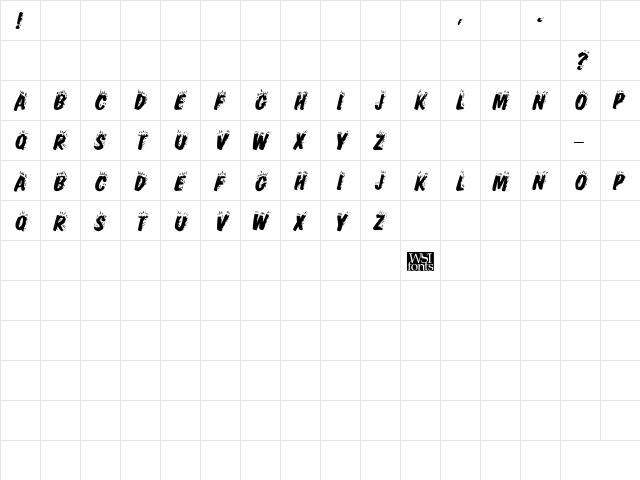
FlamingDisplayCaps Italic
Design Context for FlamingDisplayCaps Typeface
FlamingDisplayCaps is built around its visual character rather than neutral utility — its distinctive forms are designed to make an impression at display sizes. The slanted form adds forward momentum and visual energy.
Font Pairing: Pair with a clean neutral sans-serif for body copy to let FlamingDisplayCaps's character lead without overwhelming the composition.
Pro Tip: Use FlamingDisplayCaps exclusively at display sizes — it was designed to be seen, not read at length. Let a neutral companion handle body copy.